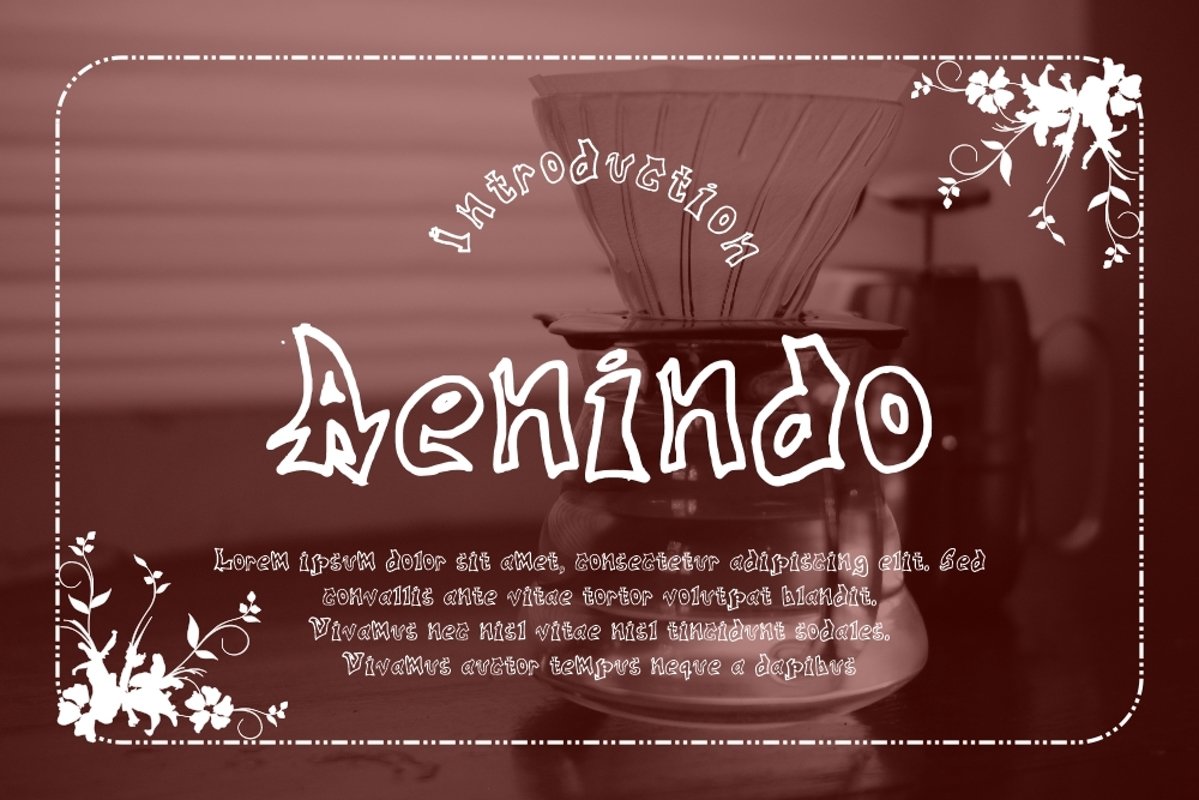
Aenindo
Aenindo-Regular
Aenindo Typeface is a Display type. It suitable for any vintage type needs and more Happy creating.Very suitable for you who do exploration